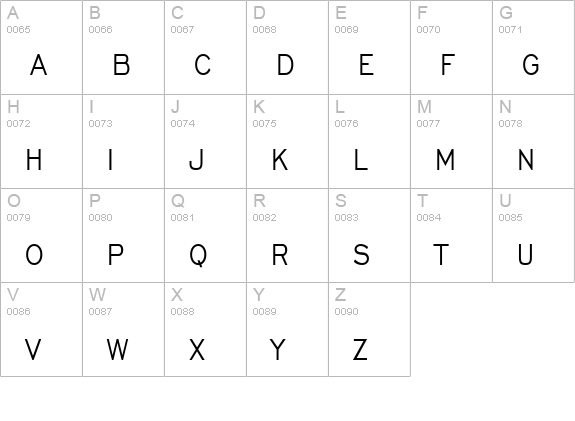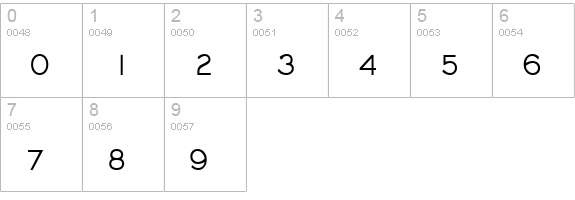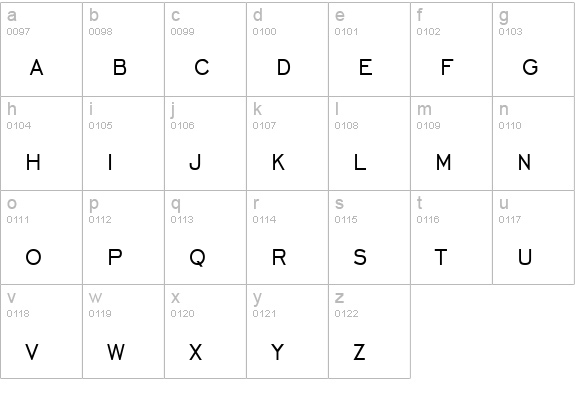
Chisel Thin Normal is a delicate, low-contrast variant in the Chisel typeface family \xE2\x80\x94 well suited to fashion editorial, minimal branding, and high-contrast display.
Chisel Thin Normal font is a sleek and modern typeface that exudes elegance and sophistication. Its sharp edges and thin strokes give it a contemporary look that is perfect for a wide range of design projects. Whether you're working on branding, logos, or editorial layouts, Chisel Thin Normal font will add a touch of refinement to your work. What's even better is that this stunning font is available for free download at FontsMarket.com. So you can easily incorporate this stylish typeface into your designs without any hassle. Don't miss out on the opportunity to enhance your projects with the effortlessly chic Chisel Thin Normal font.